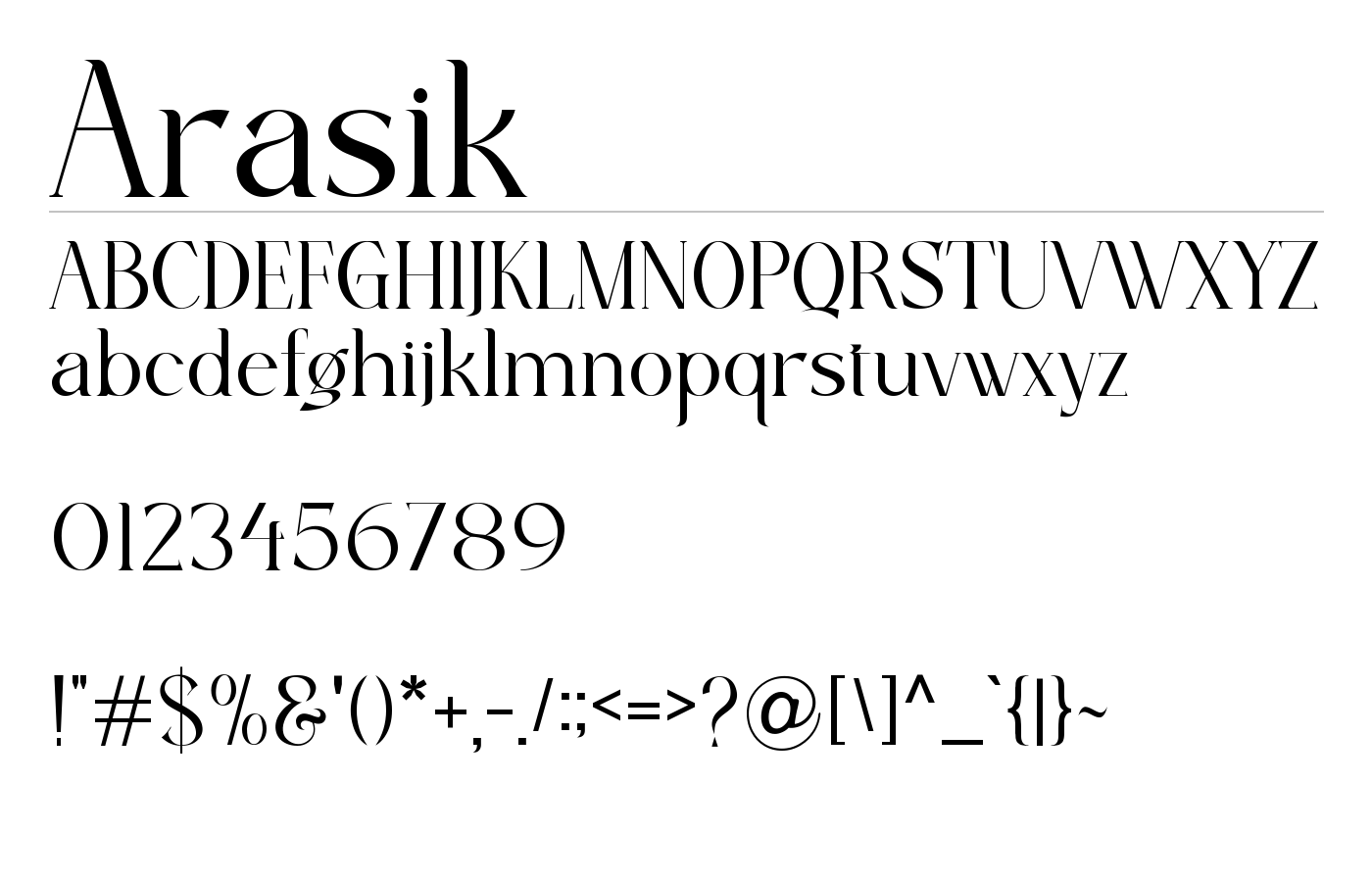
Arasik is a refined serif typeface featuring elegant, high-contrast strokes with sharp, bracketed serifs that evoke a classic yet modern feel. Its tall, narrow letterforms and delicate details make it ideal for luxury branding, editorial headlines, and sophisticated design projects that require a graceful, timeless touch. This font works especially well where clarity and stylish refinement are key.
Arasik Font